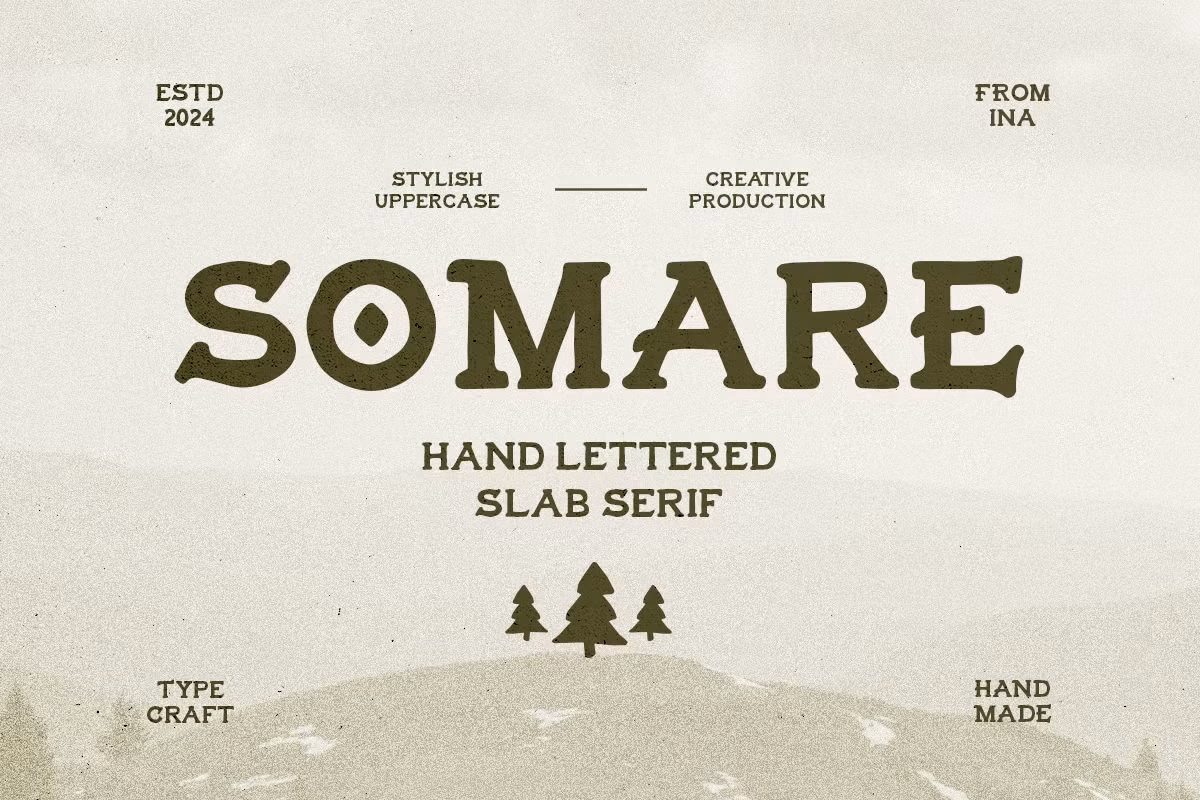
The Somare - Hand Lettered Slab Serif Font Free Download is a unique blend of bold slab serifs and the charm of hand-lettered design. Perfect for logos, branding, posters, social media graphics, and packaging, this font brings a personal and artistic touch to any project.
With its strong letterforms and slightly rustic feel, Somare offers excellent readability and visual interest, making it ideal for both display text and smaller sizes. It includes uppercase and lowercase letters, numbers, punctuation, and multilingual support, providing great flexibility for a variety of creative applications.